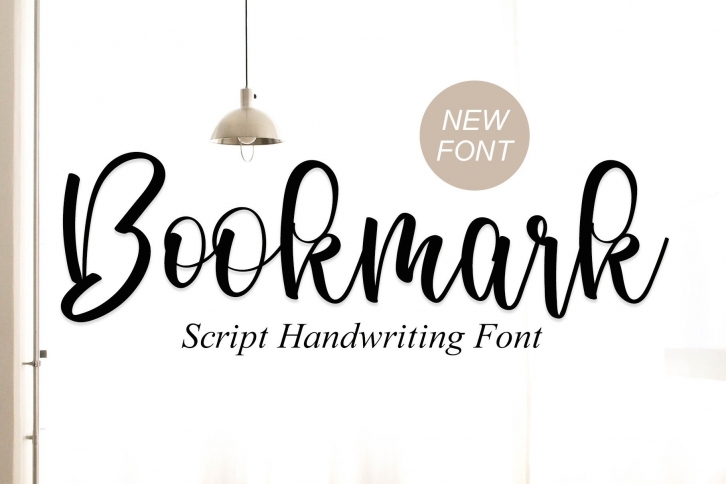
Bookmark FONT Download
Bookmark Font Download
Bookmark is a stylish handwritten font with a contemporary atmosphere and impeccable form, inspired by timeless classic calligraphy. Balanced and varied, this font was designed to enhance the beauty of your projects.